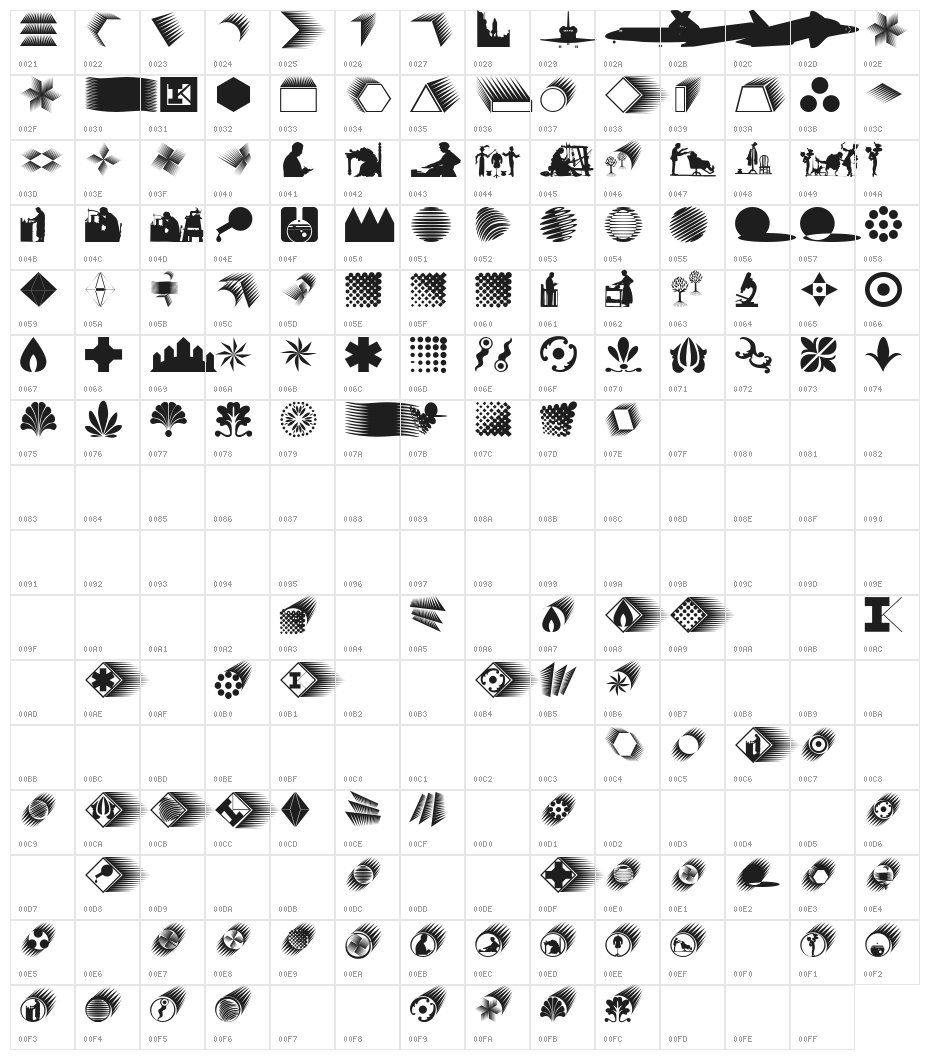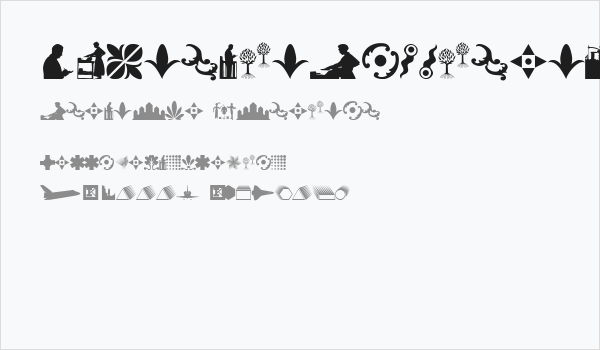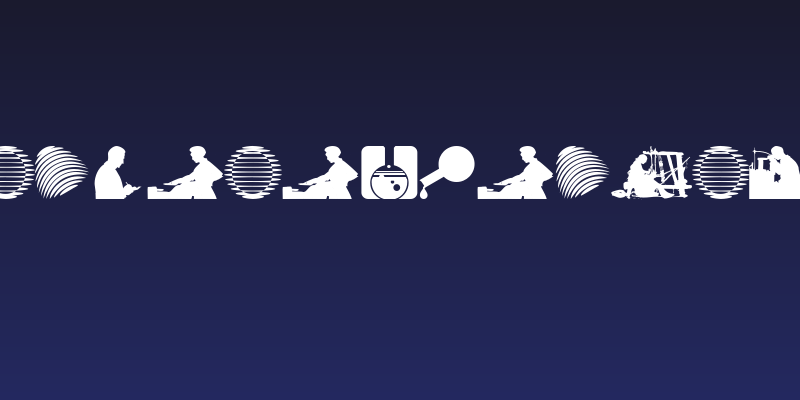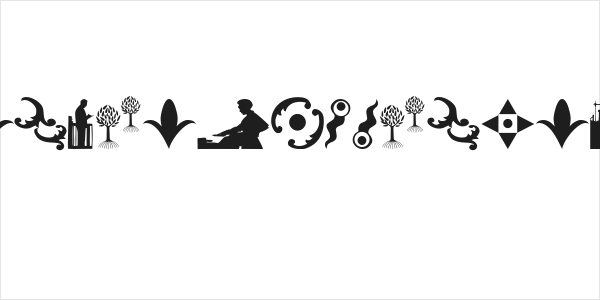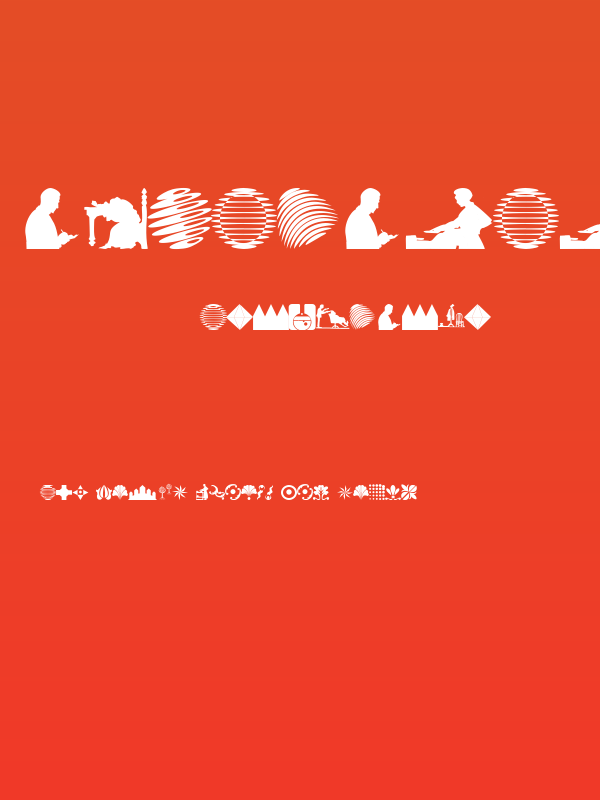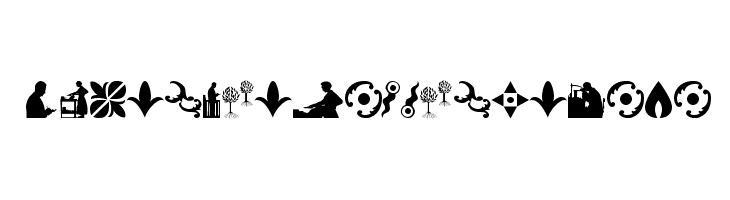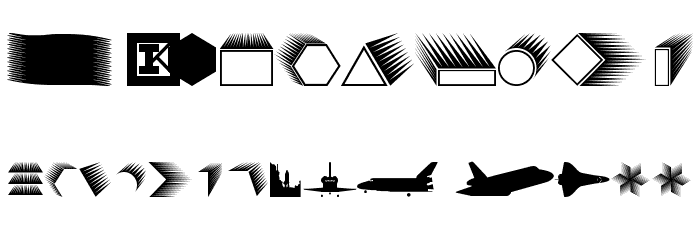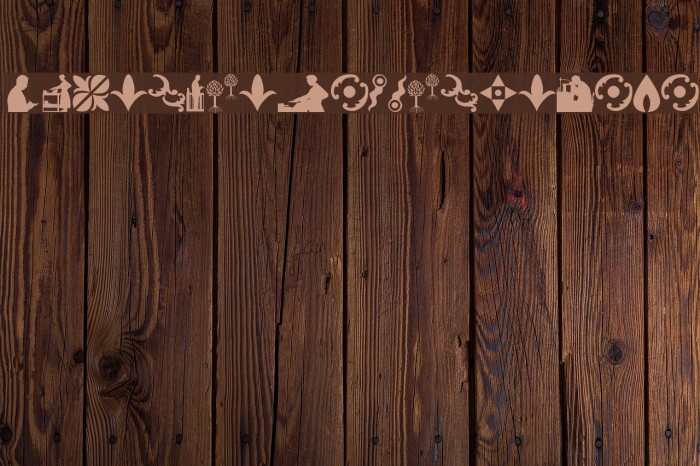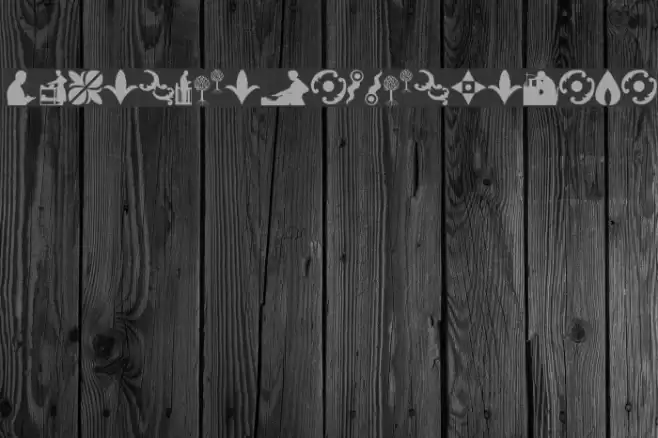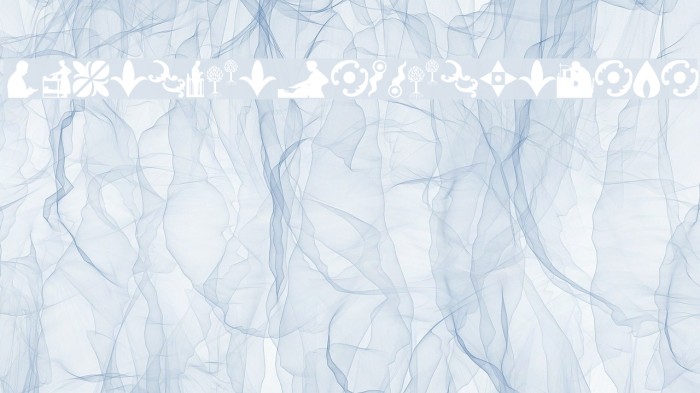
AbstractConcretLogo Font
AbstractConcretLogo Description
A collection of abstract and concrete pictograms, silhouettes, and geometric shapes, including human figures, scientific tools, plants, cityscapes, floral motifs, airplanes, and various abstract forms. The glyphs are solid black or outlined, with some using line patterns to create a sense of motion or depth. The style is highly decorative and illustrative, with a mix of organic and geometric elements.
| Overall Style | Decorative, Modern, Illustrative |
| Use Case | Logos, Icons, Borders, Decorative Elements |
| Proposed Projects | Logo design, branding, infographics, educational materials, creative borders, and decorative dividers. |